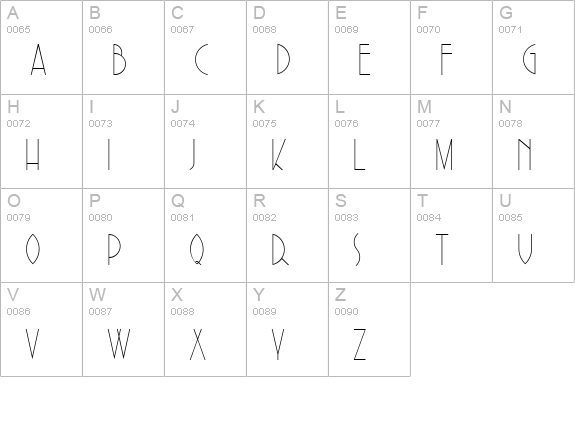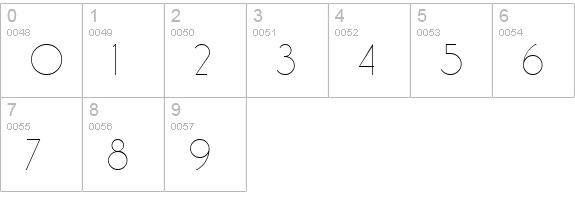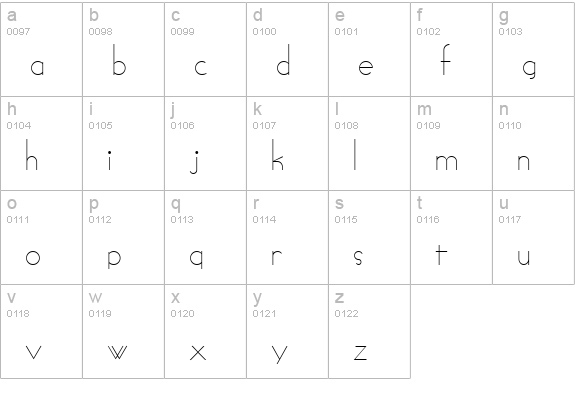
Sadelle Regular is the standard, neutral variant in the Sadelle typeface family \xE2\x80\x94 well suited to general body text, paragraphs, and standard typographic work.
Sadelle Regular is a versatile and elegant font that effortlessly combines modernity with classic charm. Its clean and crisp lines make it ideal for a wide range of design projects, from branding and advertising to editorial layouts and web design. With its balanced letterforms and smooth curves, Sadelle Regular brings a sense of sophistication and refinement to any text. Whether used for headlines, subheadings, or body text, this font exudes a timeless elegance that is sure to captivate and engage readers. What sets Sadelle Regular apart is its availability as a free download on FontsMarket.com. This means that designers and creatives can enjoy the benefits of this exceptional font without any cost. It is a fantastic opportunity to add a touch of class to your projects without breaking the bank. Whether you are working on a personal project or a professional endeavor, Sadelle Regular is a font that will elevate your designs to new heights. Its versatility, legibility, and distinctive style make it a perfect choice for various applications, from branding and packaging to invitations and signage. So why wait? Experience the beauty and versatility of Sadelle Regular today by downloading it for free at FontsMarket.com. Let your creativity flourish as you explore the endless possibilities this font has to offer.